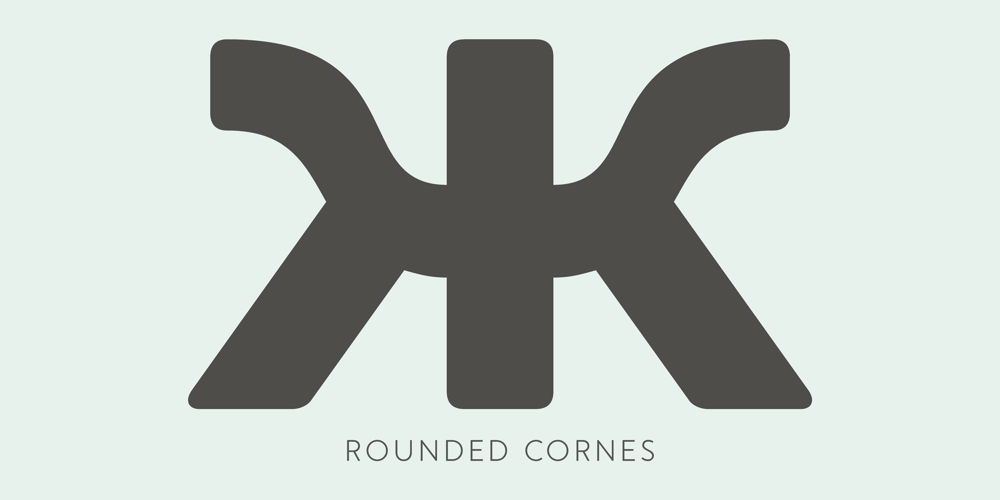
Merlo Neue Round
Merlo Neue Round font
Merlo Neue Round Font Family was designed by published by Typoforge Studio. Merlo Neue Round contains 14 styles and family package options. Merlo Neue Round is the younger brother of Merlo Round and cousin of Merlo Neue. This new family received a refreshed, rounded style and a new shape of many glyphs. New Merlo consist of a wide range of instances’ seven new weights with italics, from Hairline to Bold allows to use the family in a complex way, depending on the users’ needs. The font has a glyph set for latin and cyrylic script, small caps and old-style figures. Merlo Neue Round would be a great choice for display use as well as for the longer texts. This family is inspired by a “You And Me Monthly” published by National Magazines Publisher RSW “Prasa” from May 1960 till December 1973 in Poland.